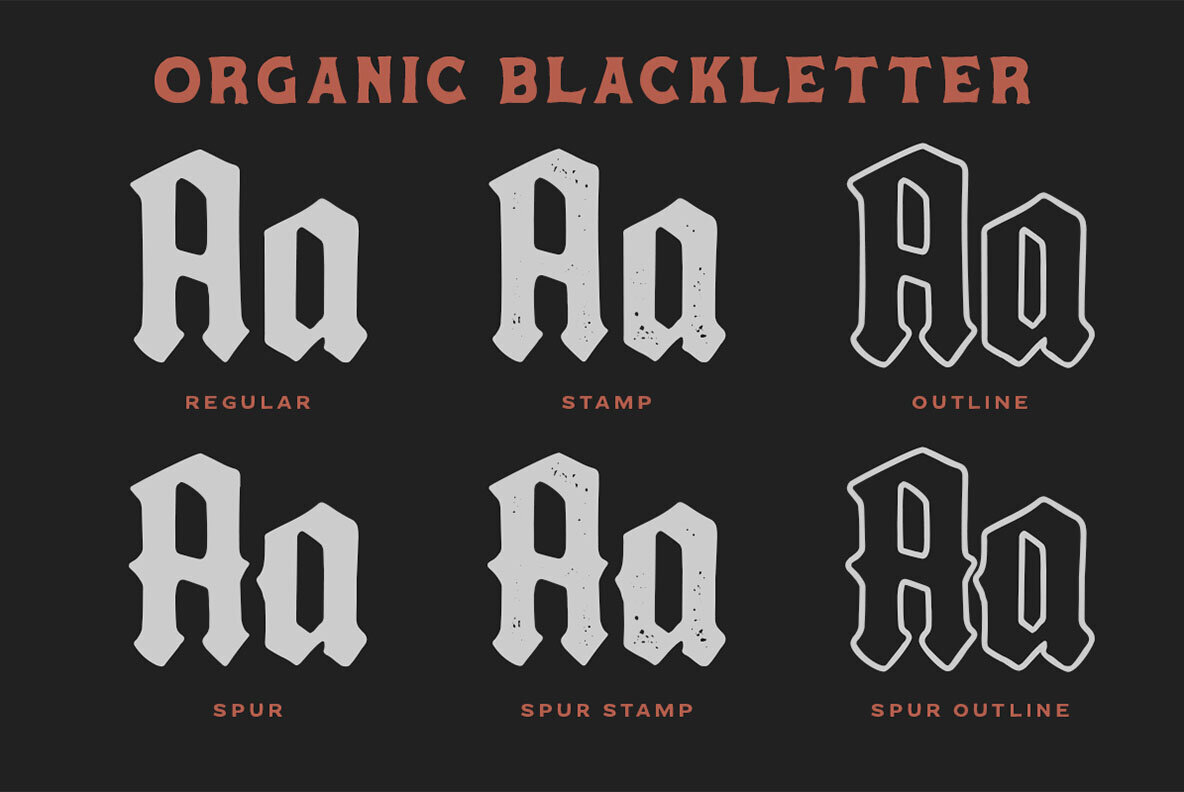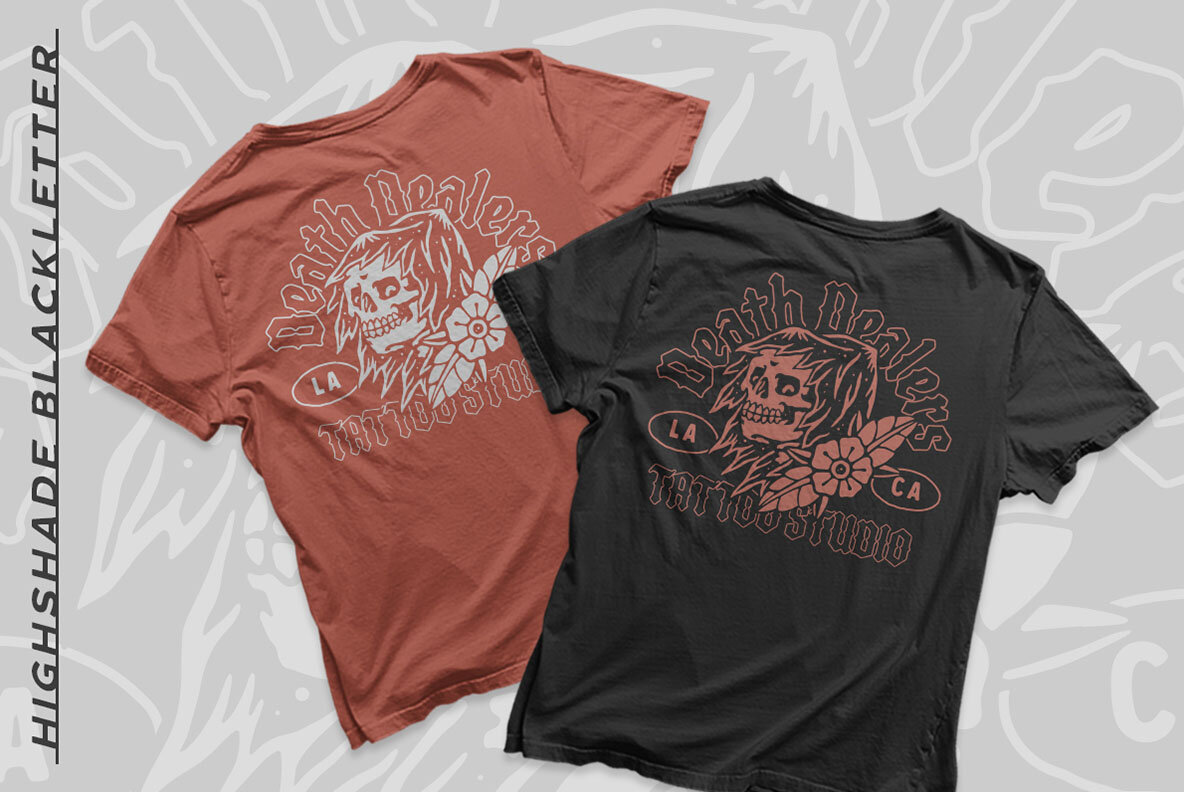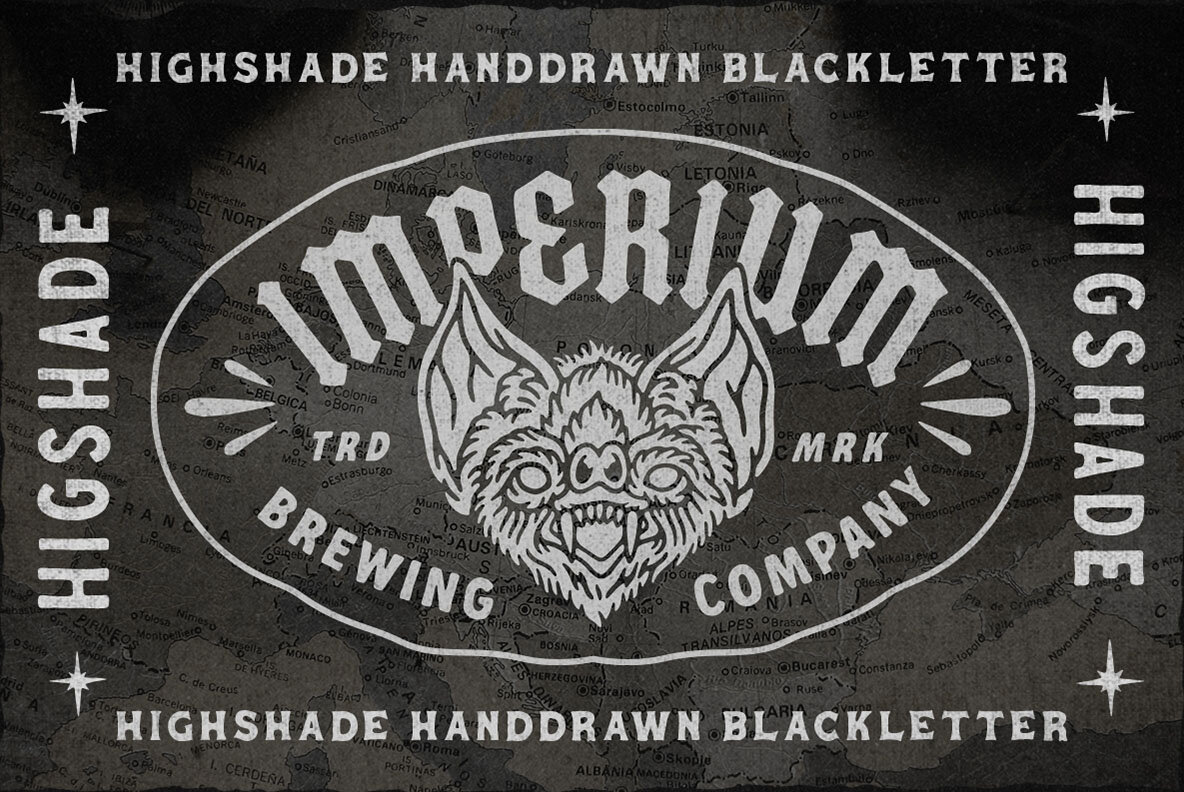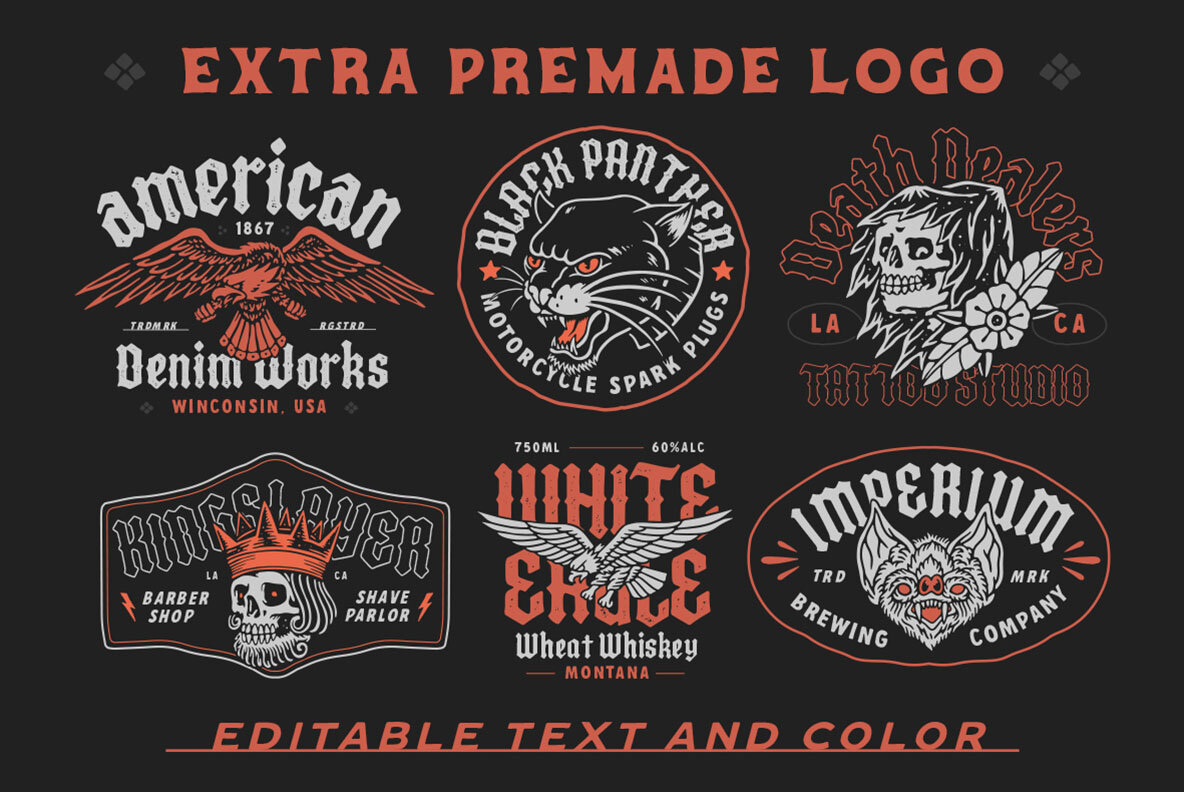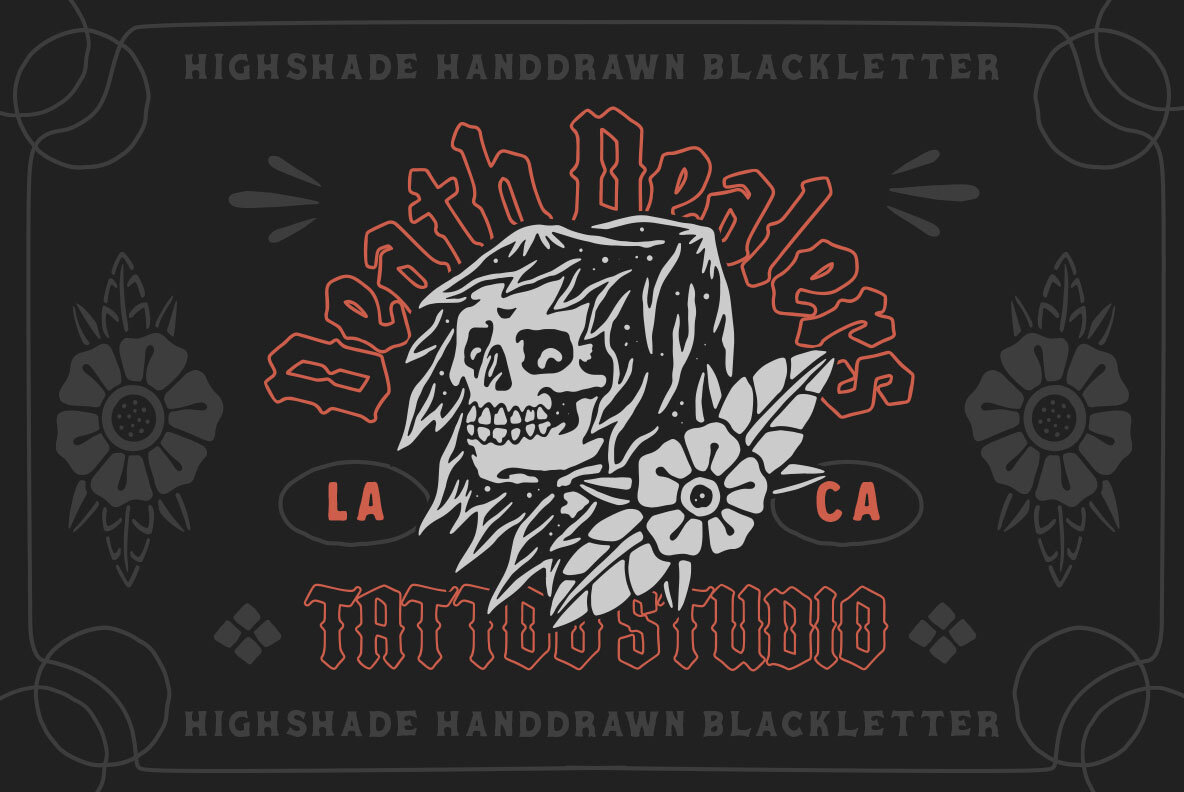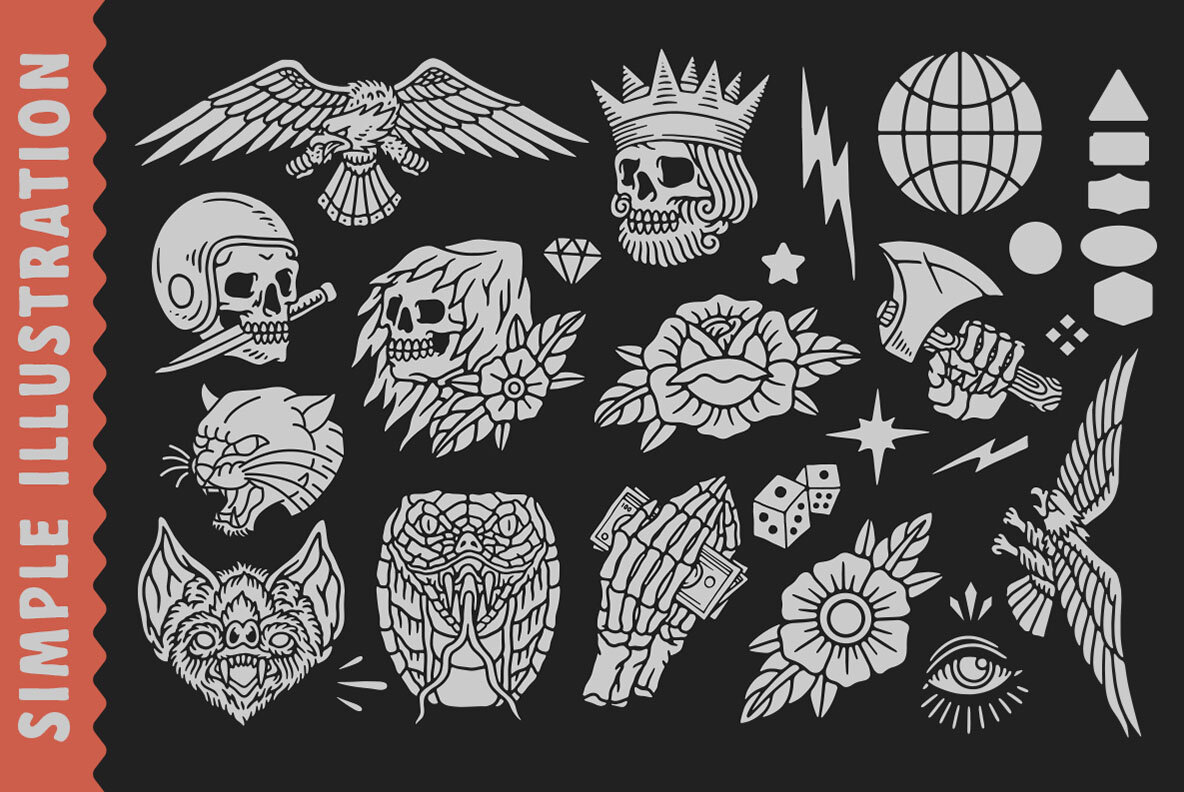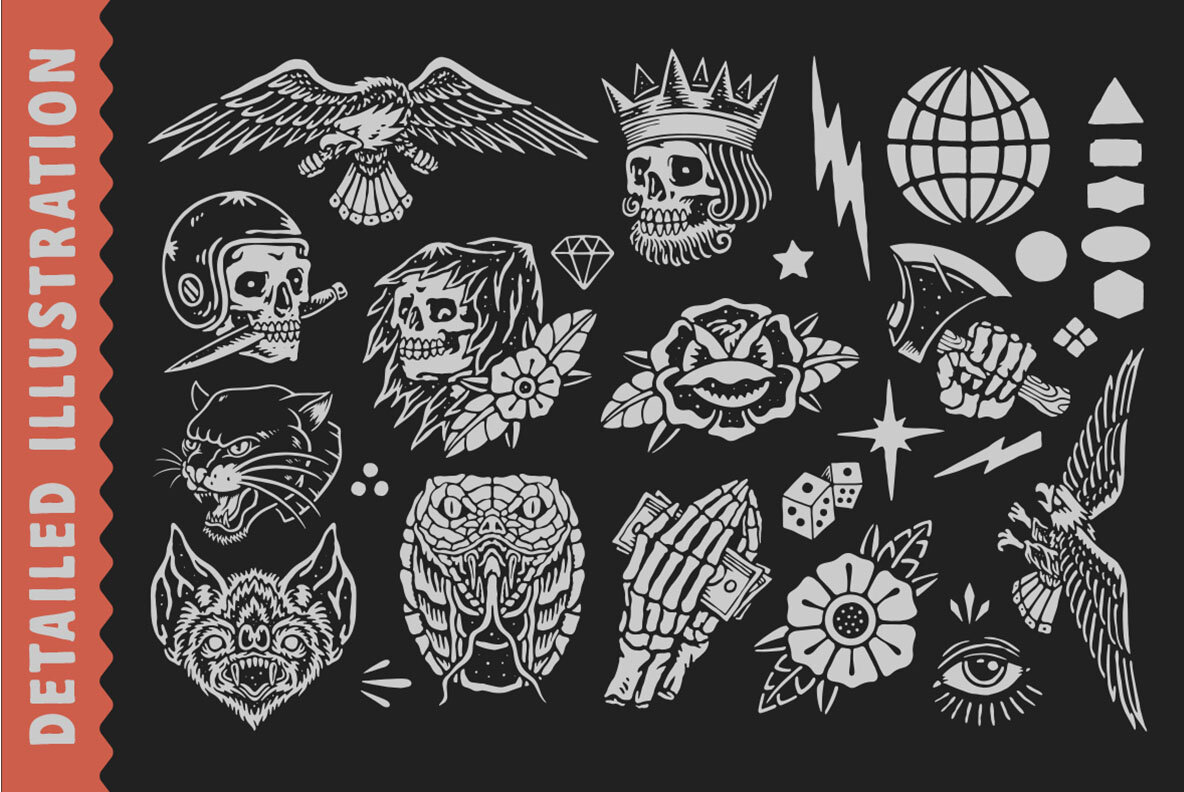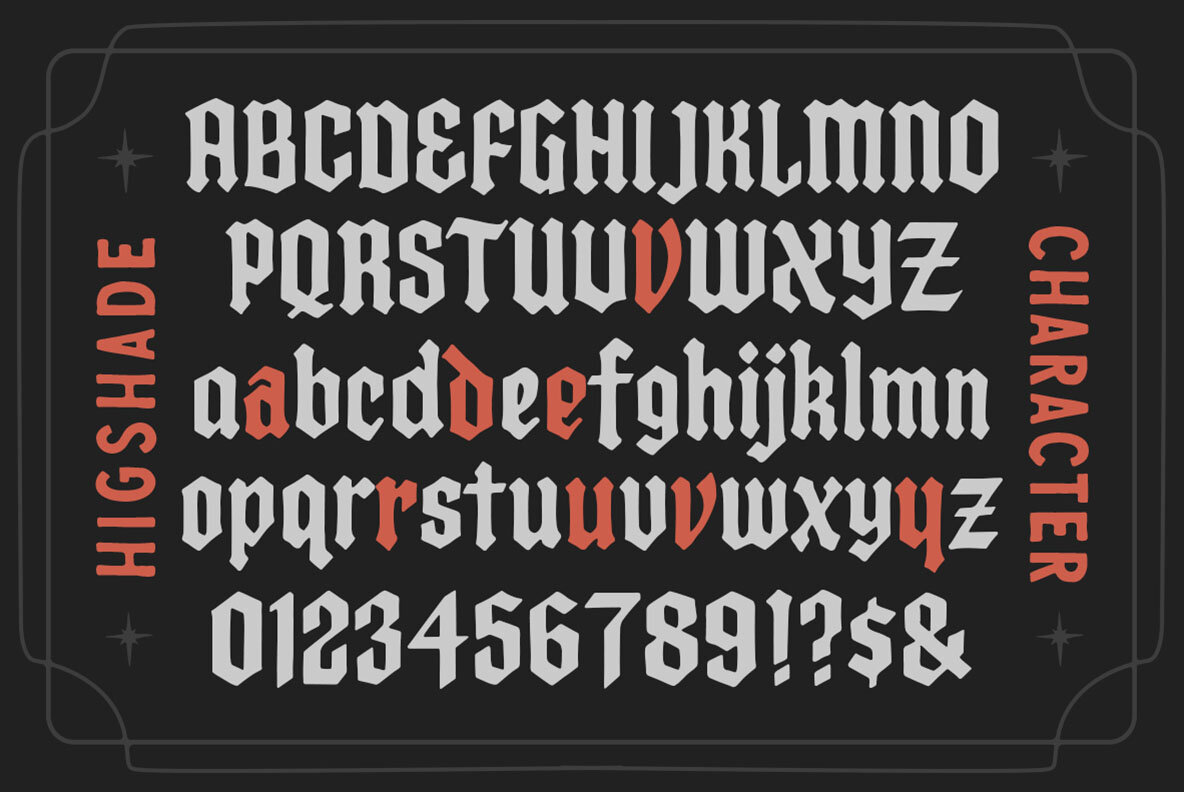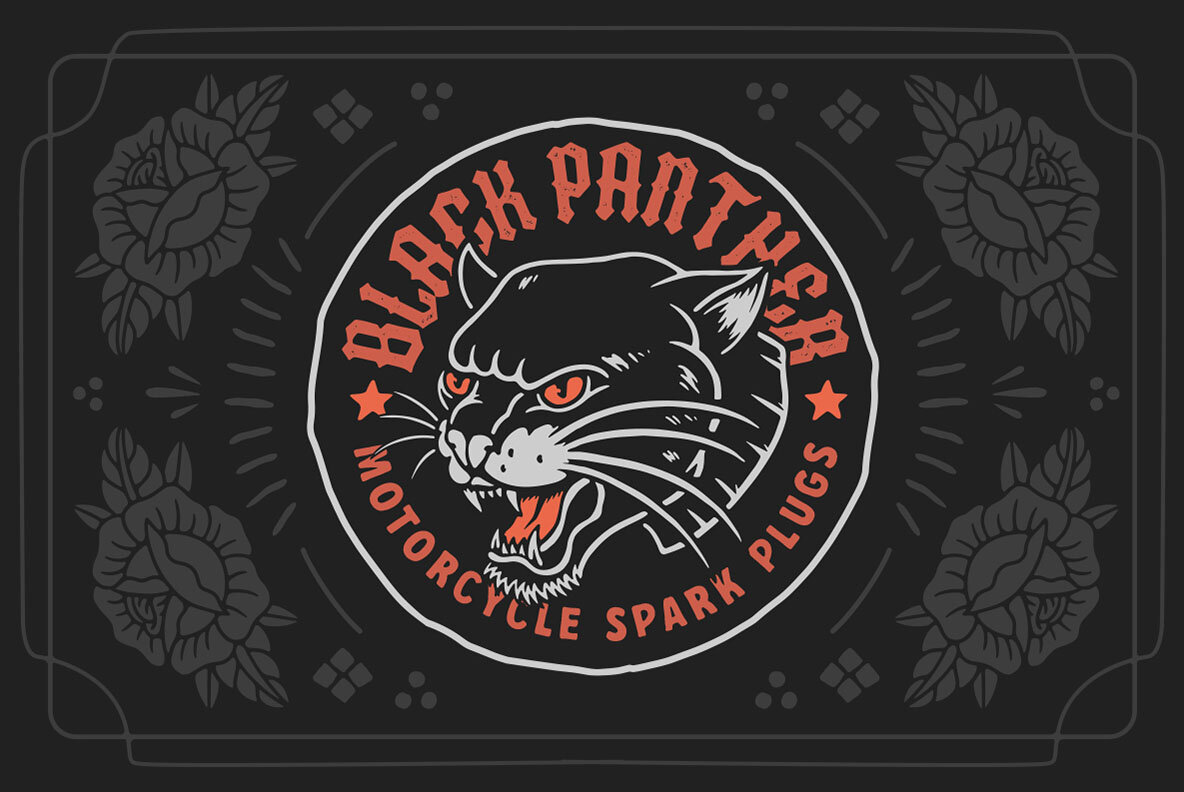
Highshade Font
Highshade Regular
Highshade Dingbats
Highshade Outline
Highshade Spur
Highshade Spur Outline
Highshade Spur Stamp
Highshade Stamp
Introducing Highshade, a distinctive organic blackletter font, meticulously hand-drawn to embody strength and power. Each line and curve is thoughtfully crafted, providing an authentic and organic feel that distinguishes it from traditional Blackletter fonts. Included are a collection of ILLUSTRATIONS & PREMADE LOGOS, simplifying the process of creating visually cohesive designs. Ideal for a range of graphic design projects such as branding materials, t-shirts, prints, logos, posters, and quotes. What's Included: NOTE: Please consult the Help File first. All characters are available and accessible in the Adobe Illustrator Glyphs Panel or the Adobe Photoshop Character Open Type Panel.